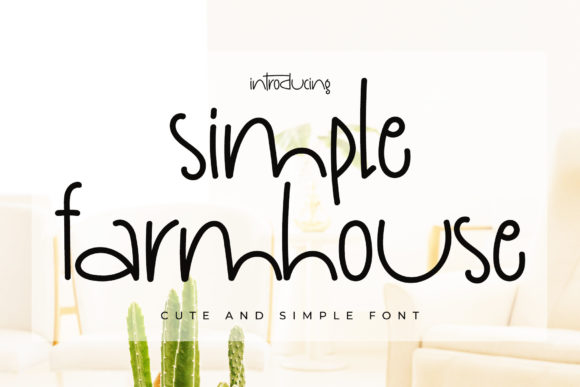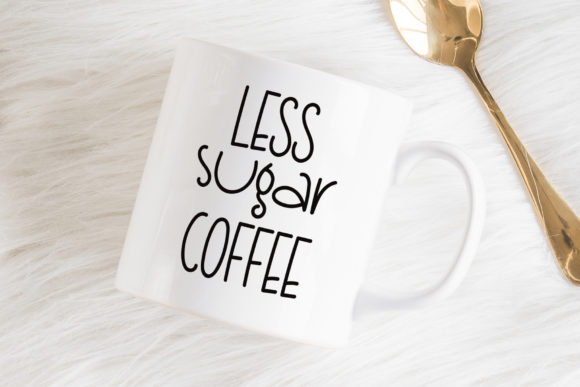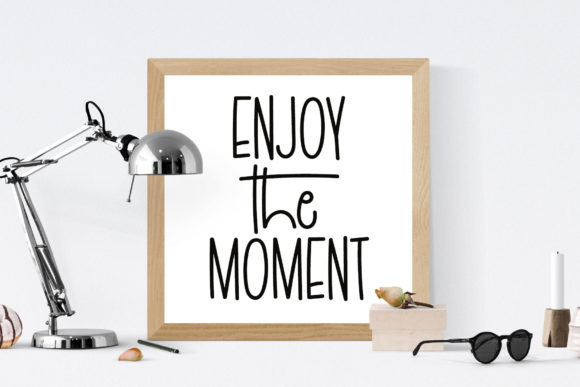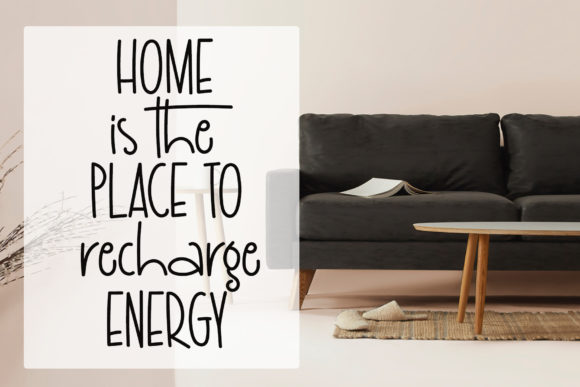
Simple Farmhouse Font
Simple Farmhouse is a sweet and subtle handwritten font that is crafted with great care for maximum results. It will add elegance and class to any of your design projects.